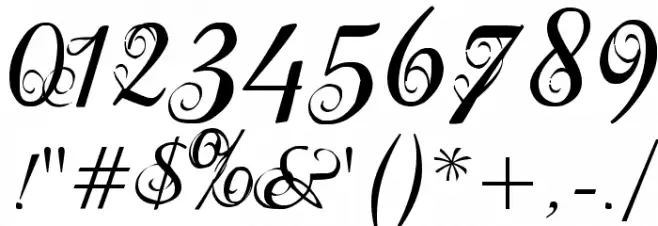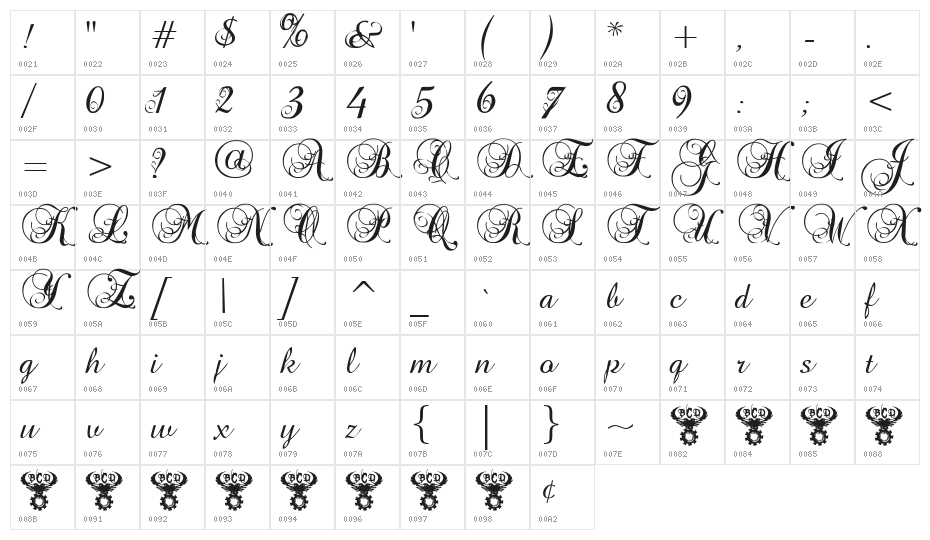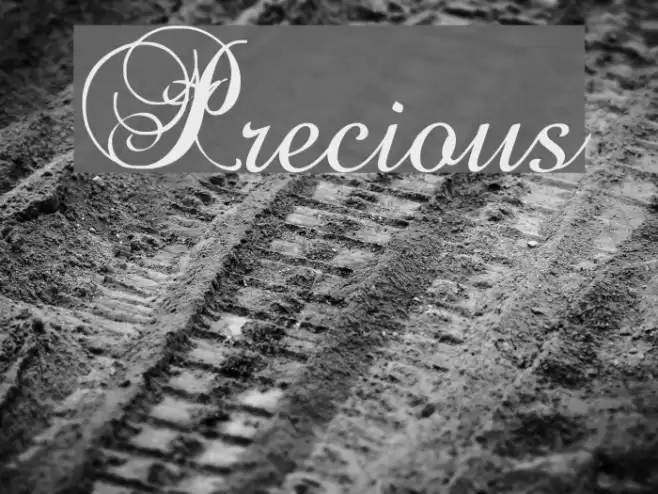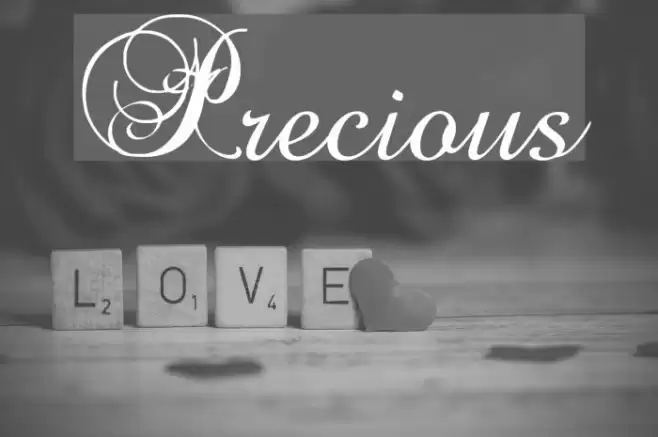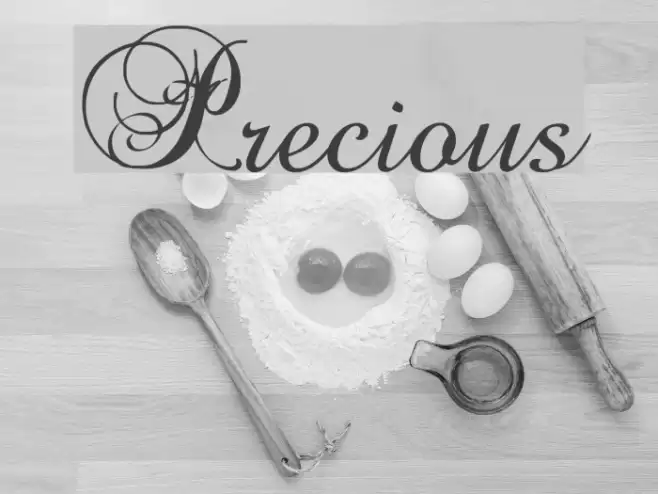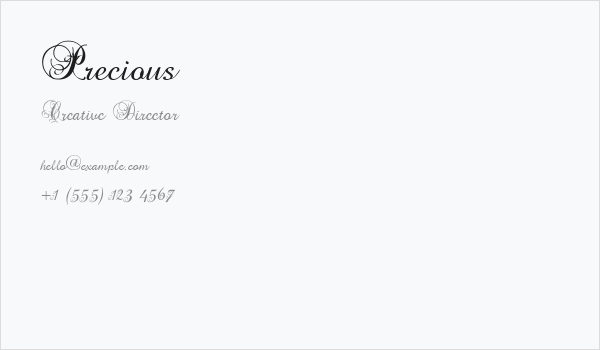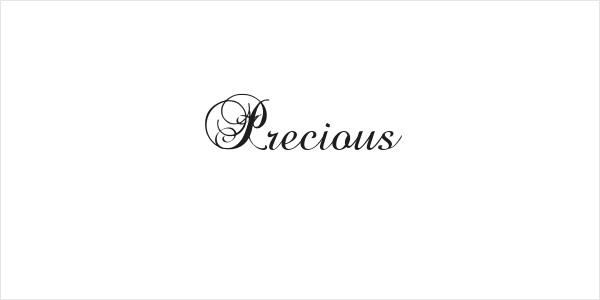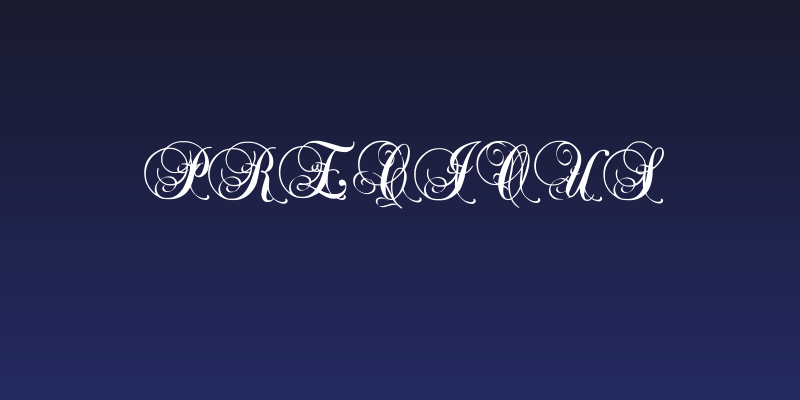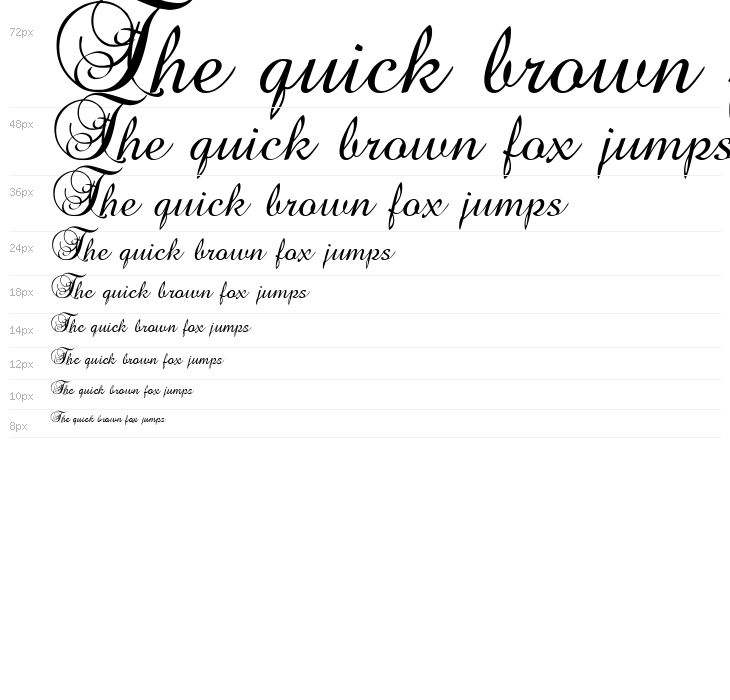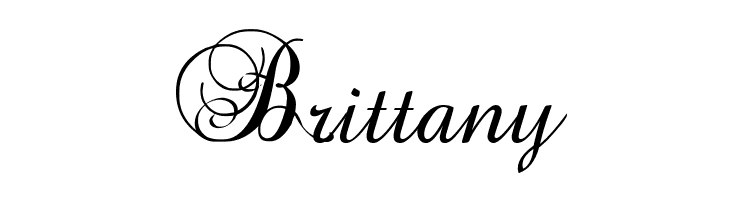
Precious Font
Precious Description
This font is an elegant and ornate script style, characterized by its flowing, cursive letterforms and intricate swashes. The uppercase letters are particularly decorative, with elaborate flourishes that extend beyond the baseline and cap height, giving it a luxurious and sophisticated appearance. The lowercase letters maintain a more restrained elegance, with smooth, connected strokes that enhance readability. The numerals and special characters also feature subtle embellishments, adding to the overall cohesive design. This font's intricate details and graceful curves make it ideal for projects that require a touch of refinement and class.
Use CaseLogos, Headlines, Invitations
Proposed ProjectsIdeal for wedding invitations, luxury branding, elegant stationery, and decorative headlines.